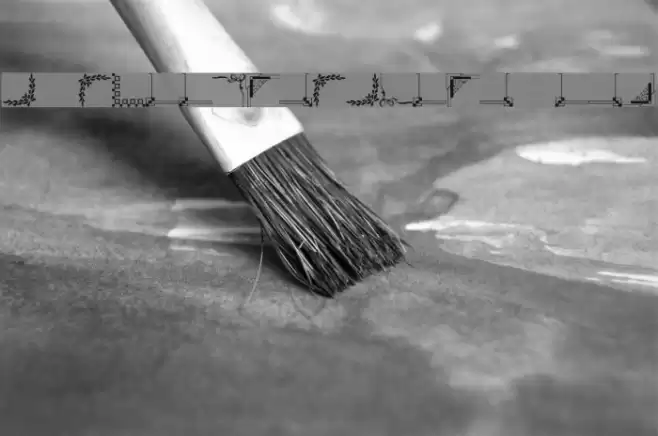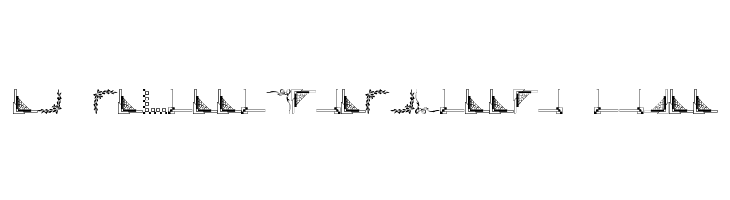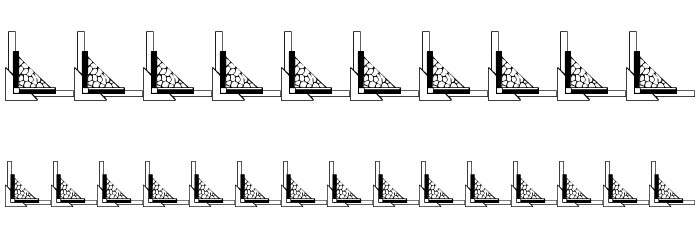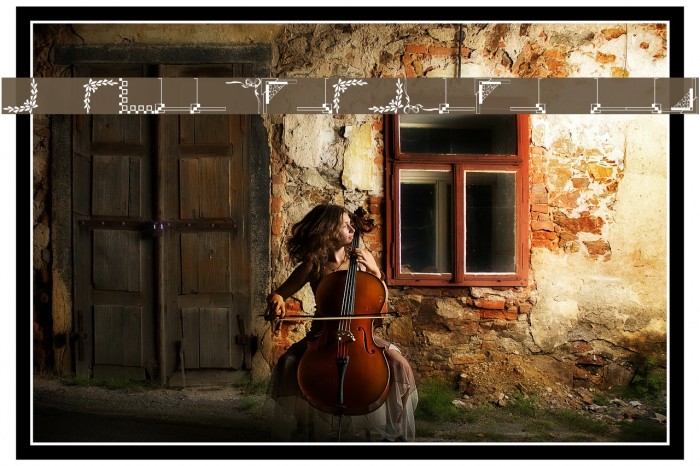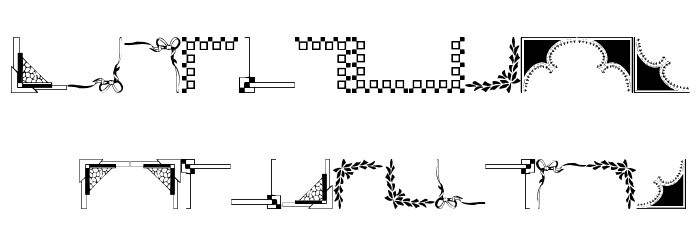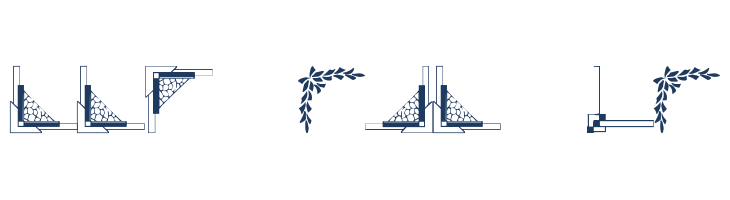
Vintage Decorative Corners 4 Font
Vintage Decorative Corners 4 Description
A decorative set of vintage-inspired corner ornaments featuring intricate line work, geometric patterns, and floral motifs. The designs are highly ornamental and intended for embellishing the corners of pages, frames, or invitations, rather than for standard alphanumeric text.
Ornamental vintage corner designs for decorative use from Uncategorized fonts.
- Proposed Projects: Wedding invitations, certificates, book covers, decorative borders, vintage-themed posters.
- Overall Style: Vintage, Decorative
- Use Case: Borders, Frames, Decorative accents